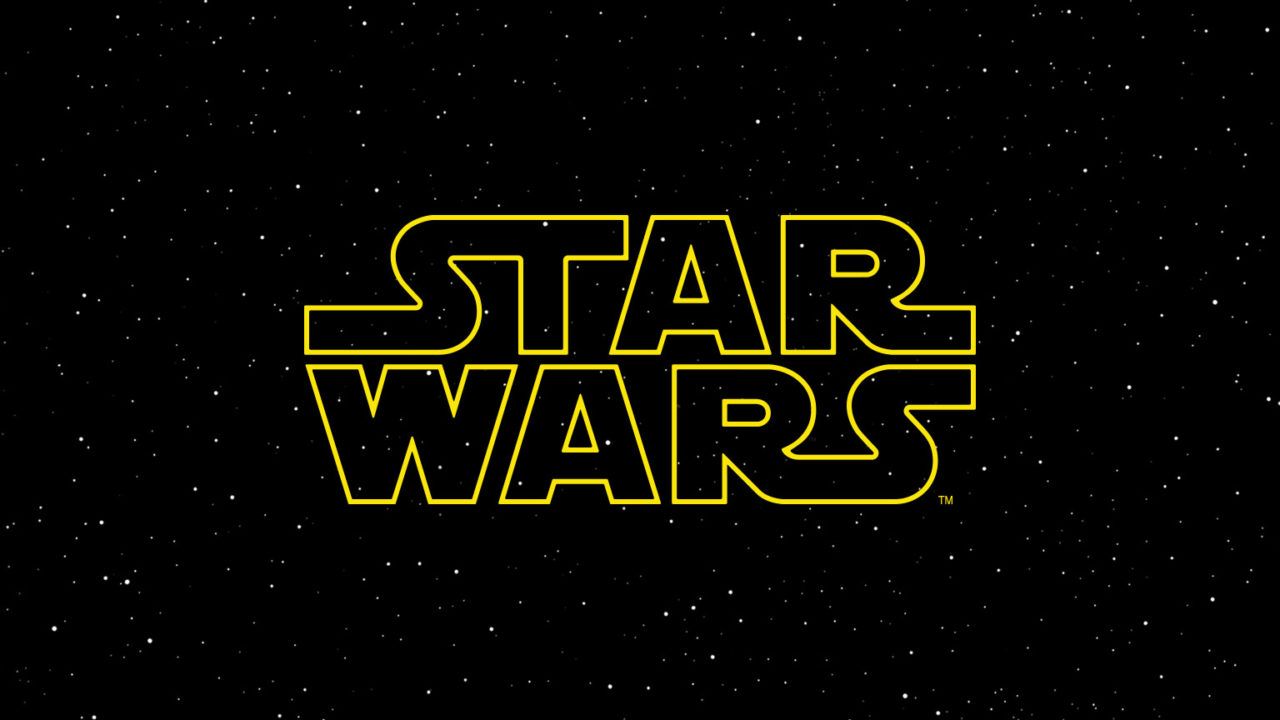
Star Wars fonts hit the screen before anything else in the Star Wars universe – before we see lightsaber or even a spaceship comes that epic typography accompanied by the invigorating intro score. This means that many Star Wars fans want to emulate the look of that Star Wars font in their own designs.
The best Star Wars fonts for epic designs
01. Soloist
We're starting off strong with this great font from Iconian fonts. Inspired by the logo for Solo: a Star Wars story, this fantastic font is bold and striking whilst being instantly recognisable to any Star Wars fan. It has a multitude of various styles so you can customise it to your heart's content.
02. Battle Star
Battle Star by Joe Dawson is another great font if you're a Star Wars fan. We love it for its simplicity – the letters are bold, striking and recognisable as something instantly sci-fi. We love the subtle texture at the bottom of the letters to make them have a bit of a pop.
03. Star Jedi font
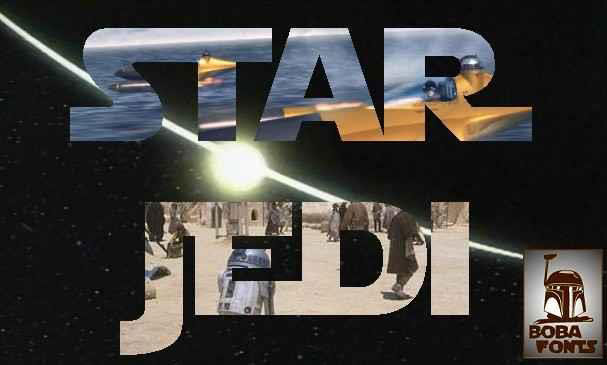
You know you're in safe hands when a designer called Boba Fonts is taking care of your free Star Wars fonts. With Star Jedi, Boba Fonts has recreated the logo perfectly, with solid and hollow variants ready to meet all your needs. This tilting, capitals-only font has a lot of variations and connections.
04. Mandalorian font
According to the author, this Mandalorian font is a movie-accurate version of the Mandalorian font, as seen in the Episode II Visual Dictionary and the 2004 Star Wars DVD release. It would be particularly handy for video makers looking to make their YouTube reviews looks extra on-brand with the series.
05. SF Distant Galaxy
Inspired by an adventure in a distant galaxy, this Star Wars font from ShyFoundry comes in 10 different styles, from bold and italics to thick strokes, all free. It has a symbol pack too, with what look like symbols from a distant civilisation as well as logos from the films.
06. Death Star
We can't introduce this font better than its creator, sharkshock, so we'll just let them explain:
"In a distant galaxy far, far away, fans of this epic series had limited options when looking for the right font to use for their projects. Patience you must have young Jedi and thank me later you will. Enter Death Star : A grotesque display font featuring all caps that resembles the classic '80s style."
With tight kerning, this font is best displayed at large sizes. The regular version is available for free, with an outlined alternative available for a $25 donation.
07. Star Jedi Outline
Good old Boba Fonts has done it again with this Star Jedi Outline font. As before, this is a tilting all-capitals font, only this time, as the name suggests, the lettering is framed with a thin outline. Font fans and Star Wars nuts can download it for free for both personal and professional use.
08. Star Jedi Logo
Following on from the Star Jedi line of fonts again, Boba Fonts has created this variation that allows for single or double lines of text that perfectly capture that Star Wars logo style. These decorative frames call to mind some of the aesthetic choices used in promotional material for the original Star Wars trilogy, which sometimes saw the title of a film wrapped in a thin outline.
09. Droidobesh depot font
This Star Wars font is something very different, and wasn't inspired by the movies. Created by AurekFonts, it was inspired by the language used in the droid depot on the planet Batuu in the augmented reality video game Star Wars: Tales from the Galaxy's Edge.
Perhaps one for the most serious hard Star Wars fans only, you might think. It's more decorative than practical since whatever you write in it will be illegible, but we love the way it convincingly mimics the glyphs from a fictional language. It could serve to add an alien look to sci-fi inspired design pieces. It includes 50 glyphs and 75 characters.
10. Shadow of Xizor Font
Another offering from Boba Fonts, this steampunky font is based on the lettering for the logo of the Star Wars Shadows of the Empire video game, novel, and comic. The narrow serif font comes with the underline logo ornament, top Star Wars logo ornament and a 'of the' mini letter group, plus dingbats reproducing the whole Star Wars logo letter group.
As for the Star Wars logo font, this was custom-designed by Suzy Rice and later modified by Joe Johnson. It's been adjusted plenty of times as the creators tried to settle on a style. One experiment saw the Star Wars: The Last Jedi logo turn red, sending the internet into meltdown as fans tried to figure out what it could mean. The closest free Star Wars logo font that we've found that emulates the design is Boba Fonts' Star Jedi.